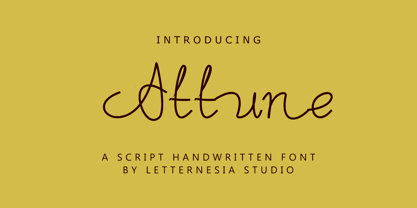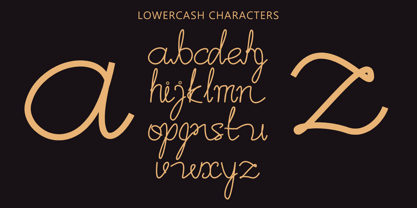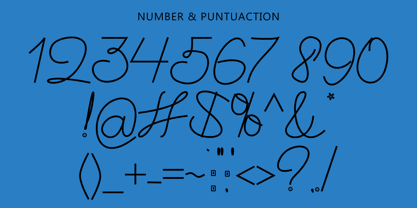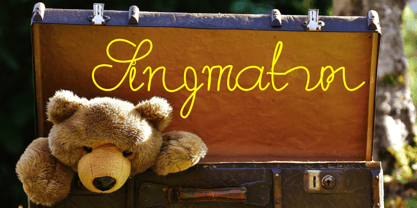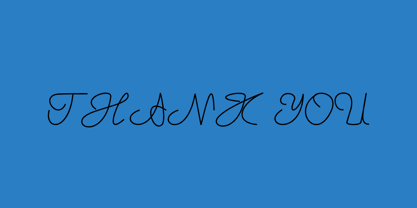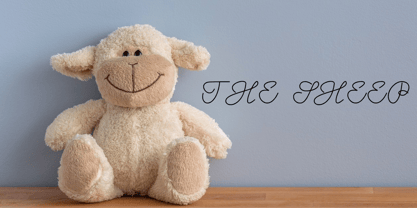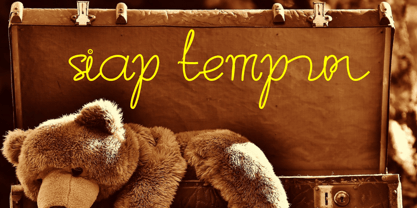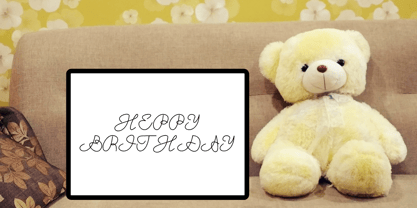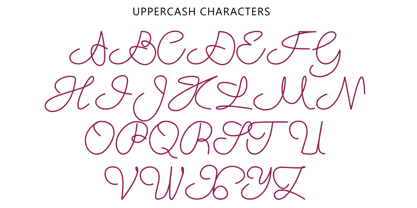
Attune
by Letternesia studio
The Attune Font Family was designed by Ta Siyo and published by Letternesia studio. Attune contains 1 styles. More about this family
Attune is an elegant and harmonious typeface designed to strike a balance between modern aesthetics and visual comfort. With smooth yet confident letterforms, Attune is ideal for branding, editorials, logos, invitations, and a wide range of creative design projects. Each curve is crafted to create a pleasing visual flow, making Attune the perfect choice for designers who value beauty and balance in typography.